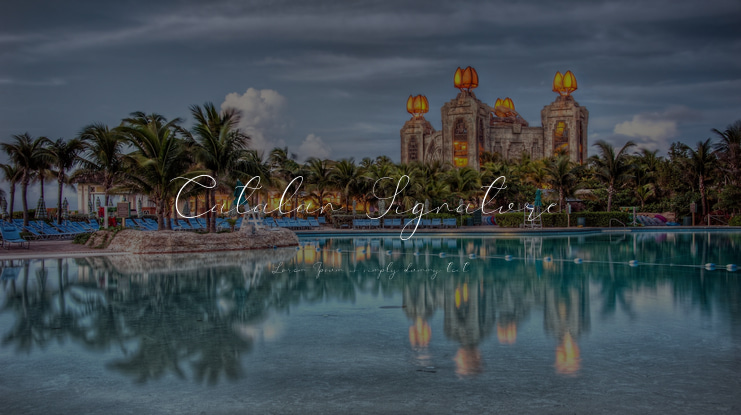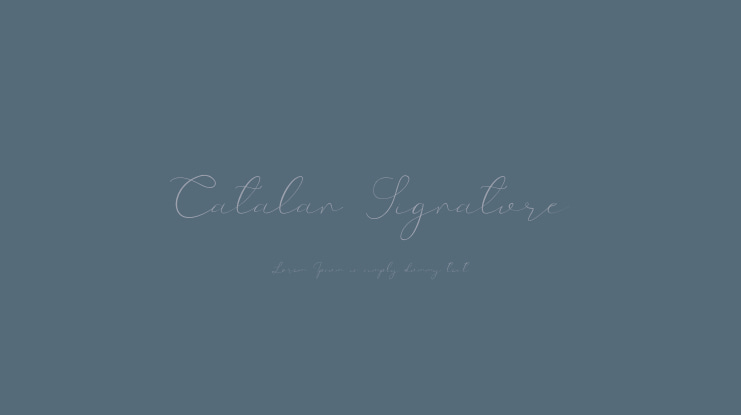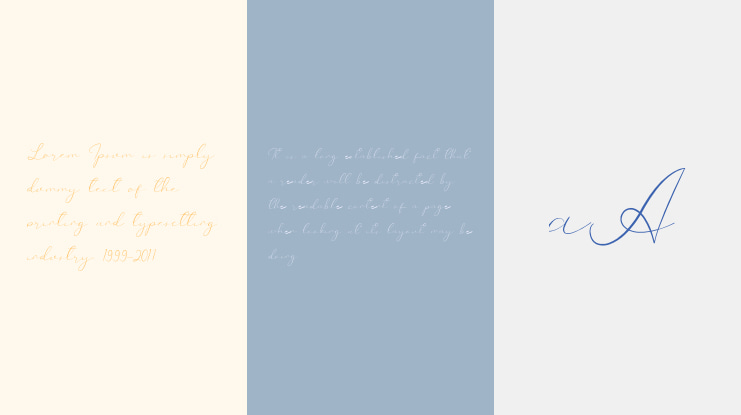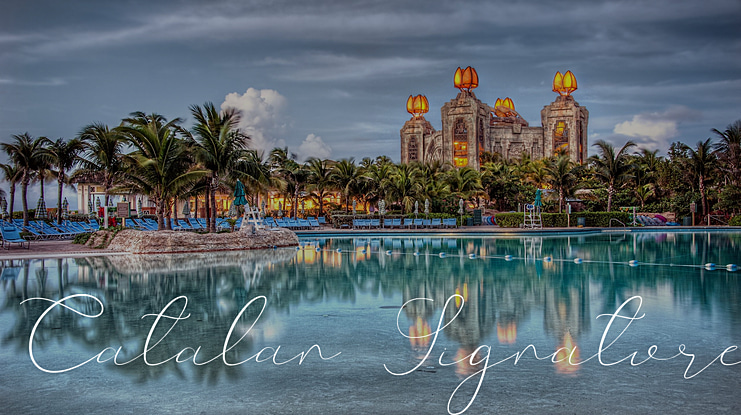
Catalan Signature Font
Introducing the new Signature Catalan script fonts - New, super cool scripts for new handwriting fonts with some additional sexy styles :)